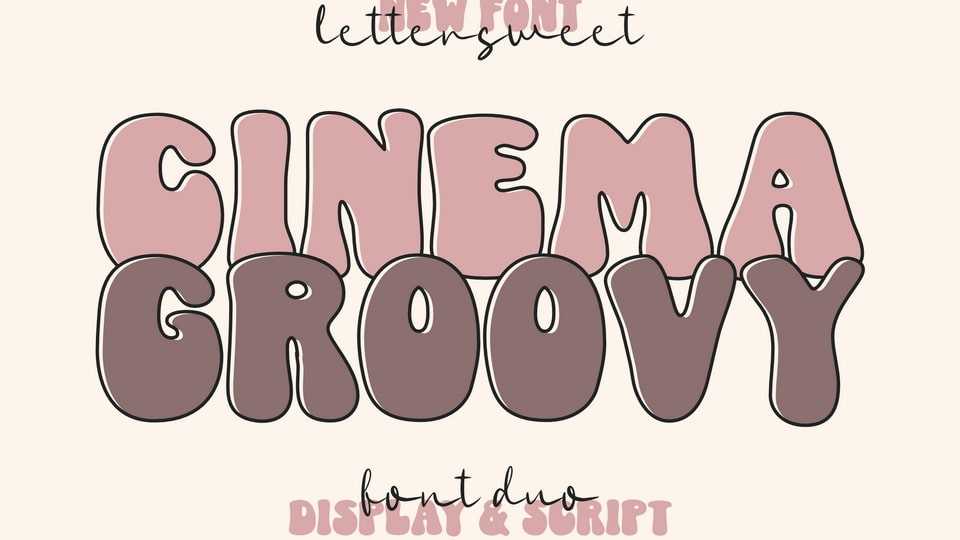
Download Cinema Groovy font, display typeface that feels playfully nostalgic and delivers an incredible vintage retro aesthetic. Use this display font to add that special retro touch to any design idea you can think of!.